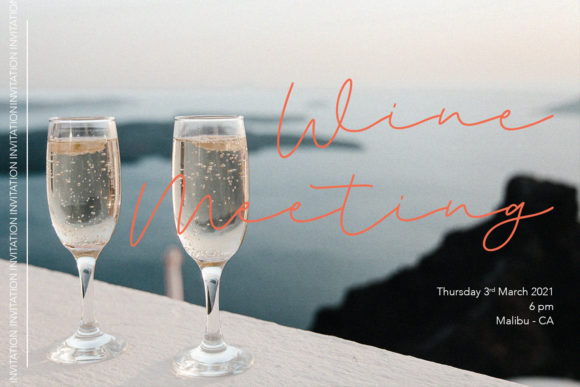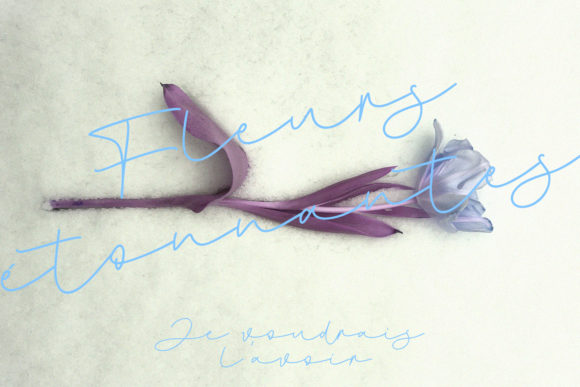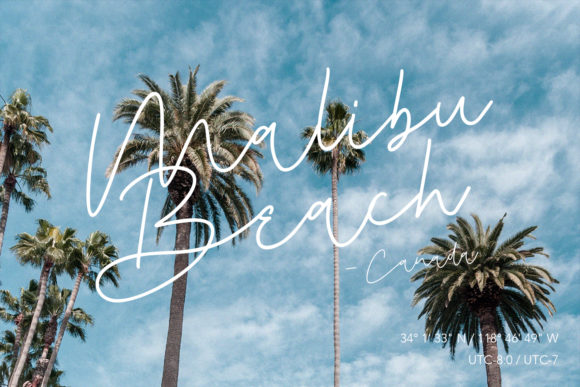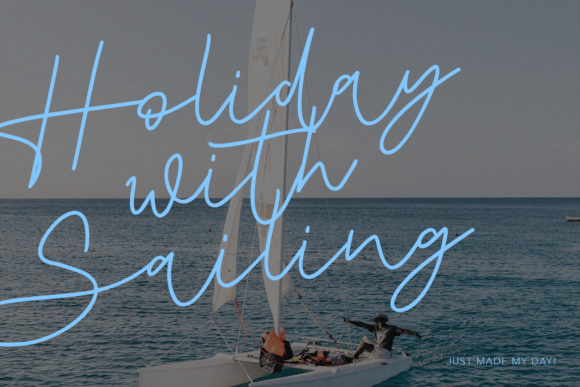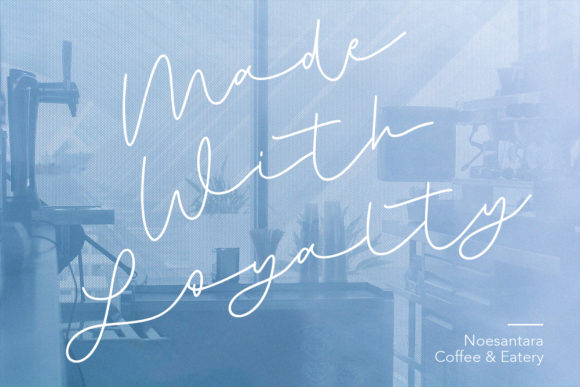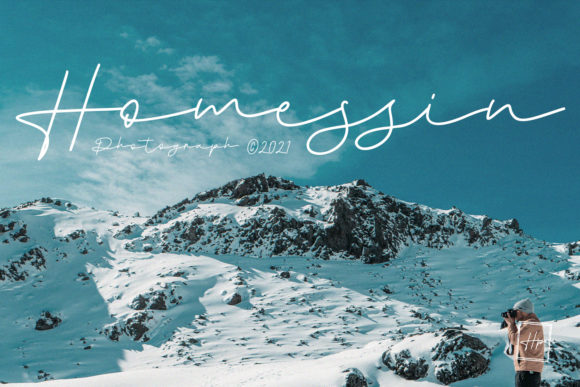
Introducing Classyloop Font: Elevate Your Designs with Elegance
Are you on the hunt for a font that exudes sophistication and style? Look no further than Classyloop Font, a stunning, cursive script font that’s sure to take your designs to the next level. With its clean, thin, and smooth vibe, Classyloop is the perfect addition to any project that requires a touch of elegance.
What Makes Classyloop Font So Special?
Classyloop Font is a beautifully crafted, delicate script font that’s designed to add a touch of refinement to any design. Its cursive style is both classic and modern, making it versatile enough to work seamlessly in a variety of contexts. Whether you’re working on a logo, branding materials, or marketing collateral, Classyloop Font is sure to make a lasting impression.
Key Features of Classyloop Font
- Stylish and Cursive: Classyloop Font boasts a gorgeous, cursive style that’s perfect for adding a touch of sophistication to your designs.
- Delicate and Thin: With its clean and thin lines, Classyloop Font is ideal for designs that require a subtle yet elegant touch.
- Smooth and Legible: The font’s smooth curves and precise lines ensure that it’s easy to read, even at smaller sizes.
- Versatile: Classyloop Font can be used in a wide range of design applications, from logos and branding to marketing materials and more.
Why Designers and Crafters Love Classyloop Font
Designers and crafters alike are drawn to Classyloop Font for its unique combination of style, elegance, and versatility. Here are just a few reasons why:
- Ease of Use: Classyloop Font is incredibly easy to use, even for those who are new to design or typography.
- Customization: The font’s delicate lines and curves make it easy to customize and manipulate to suit your design needs.
- Timeless Appeal: Classyloop Font’s classic, cursive style ensures that it will remain a timeless and relevant choice for years to come.
Tips for Using Classyloop Font in Your Designs
To get the most out of Classyloop Font, here are a few tips to keep in mind:
- Pair with Bold Fonts: Combine Classyloop Font with bold, sans-serif fonts for a striking contrast that adds visual interest.
- Use for Headings: Classyloop Font is perfect for headings and titles, where its elegant style can really shine.
- Experiment with Colors: Try pairing Classyloop Font with a range of colors to find the perfect combination that suits your design.
In conclusion, Classyloop Font is a stunning, cursive script font that’s sure to elevate your designs with its elegant style. With its clean, thin, and smooth vibe, Classyloop is the perfect choice for designers and crafters who want to add a touch of sophistication to their work. Whether you’re working on a logo, branding materials, or marketing collateral, Classyloop Font is sure to make a lasting impression.